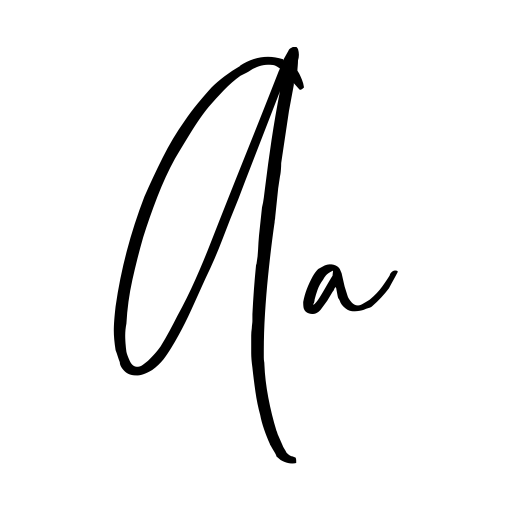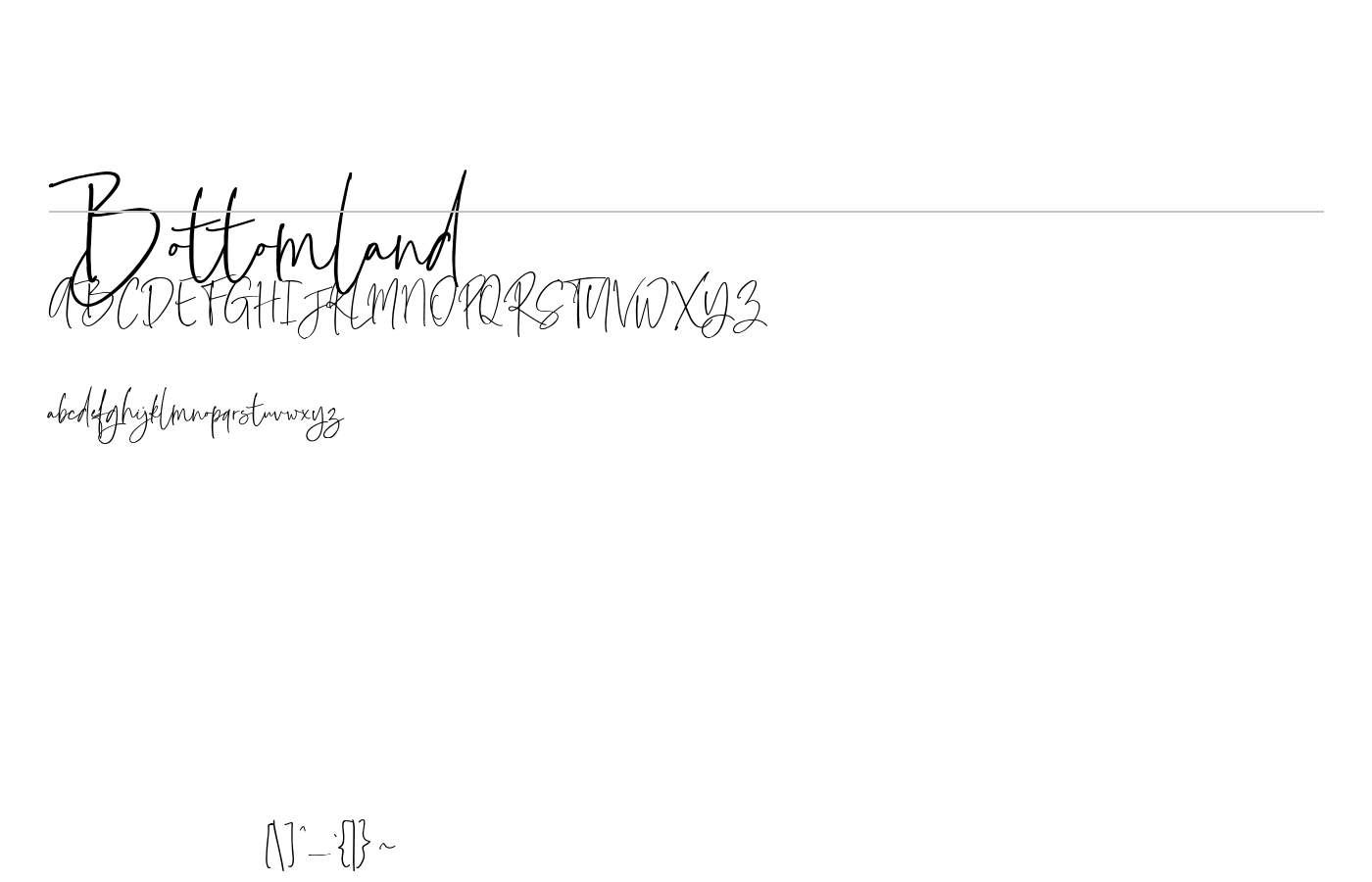
Bottomland is an elegant, hand-drawn script font characterized by its tall, narrow letterforms and delicate, flowing strokes. Its thin lines and whimsical style give it a light, airy feel that’s perfect for creative branding, invitations, and feminine design projects where a personal, artistic touch is desired. This font works best in headlines or accents rather than long texts, adding a sophisticated yet approachable charm.
Bottomland Font
About Bottomland Font